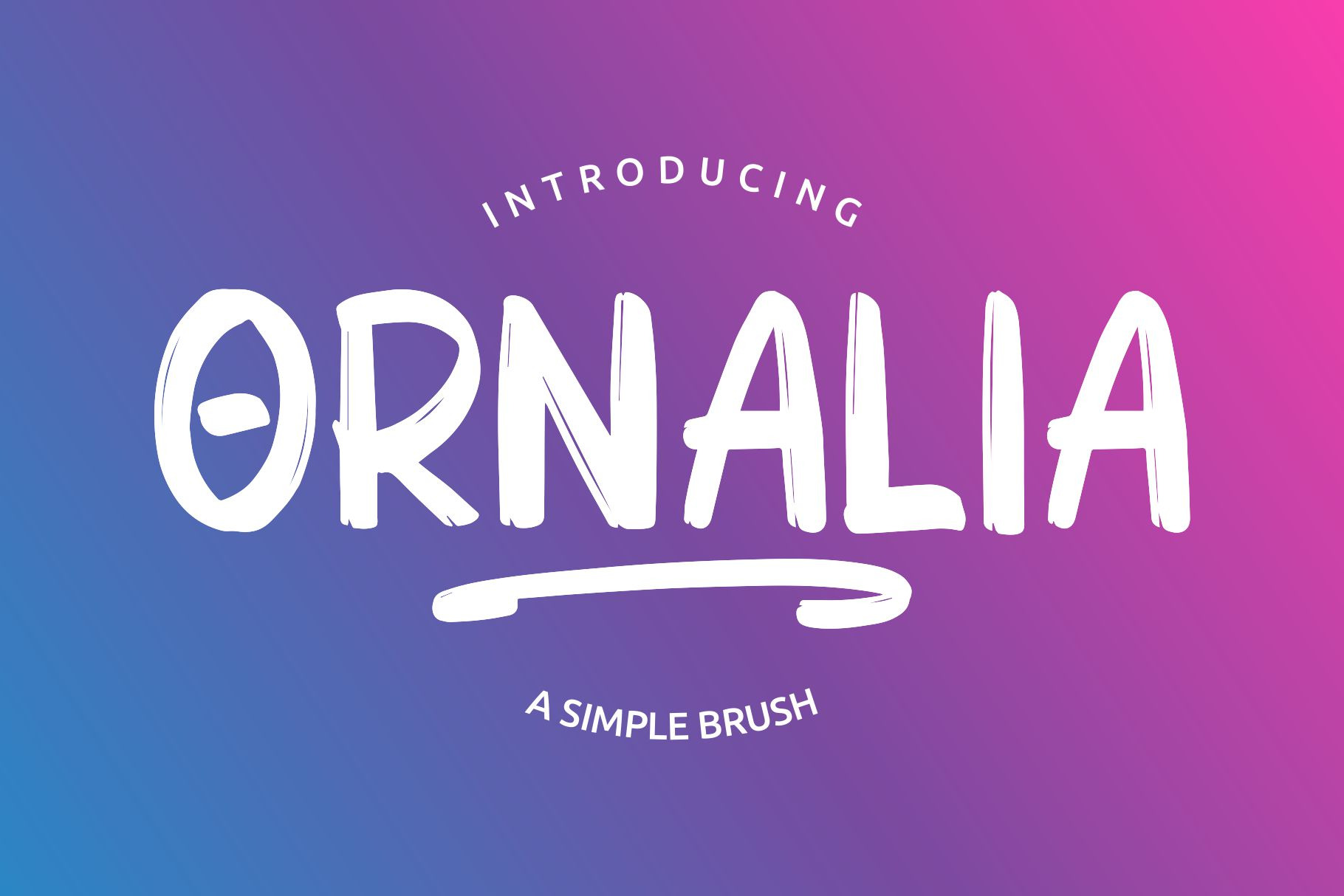
Ornalia Display Font
Give your designs an authentic and artistic. ORNALIA is perfectly suited to signature, stationery, logo, typography quotes, magazine or book cover, website header, flyer, clothing, branding, packaging design and more.